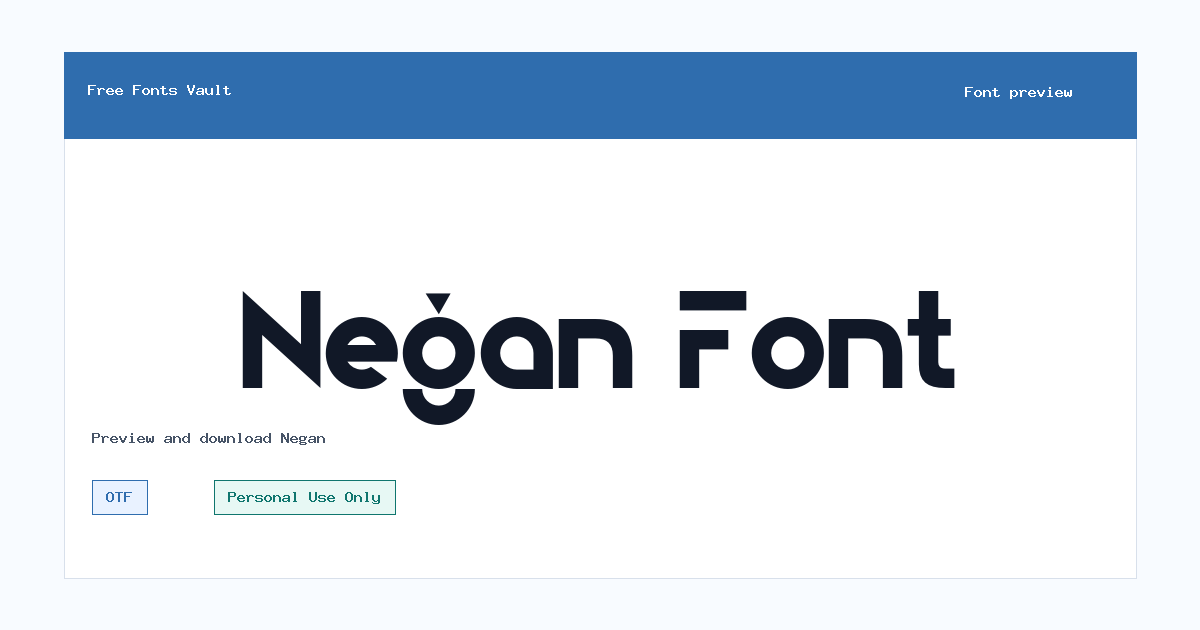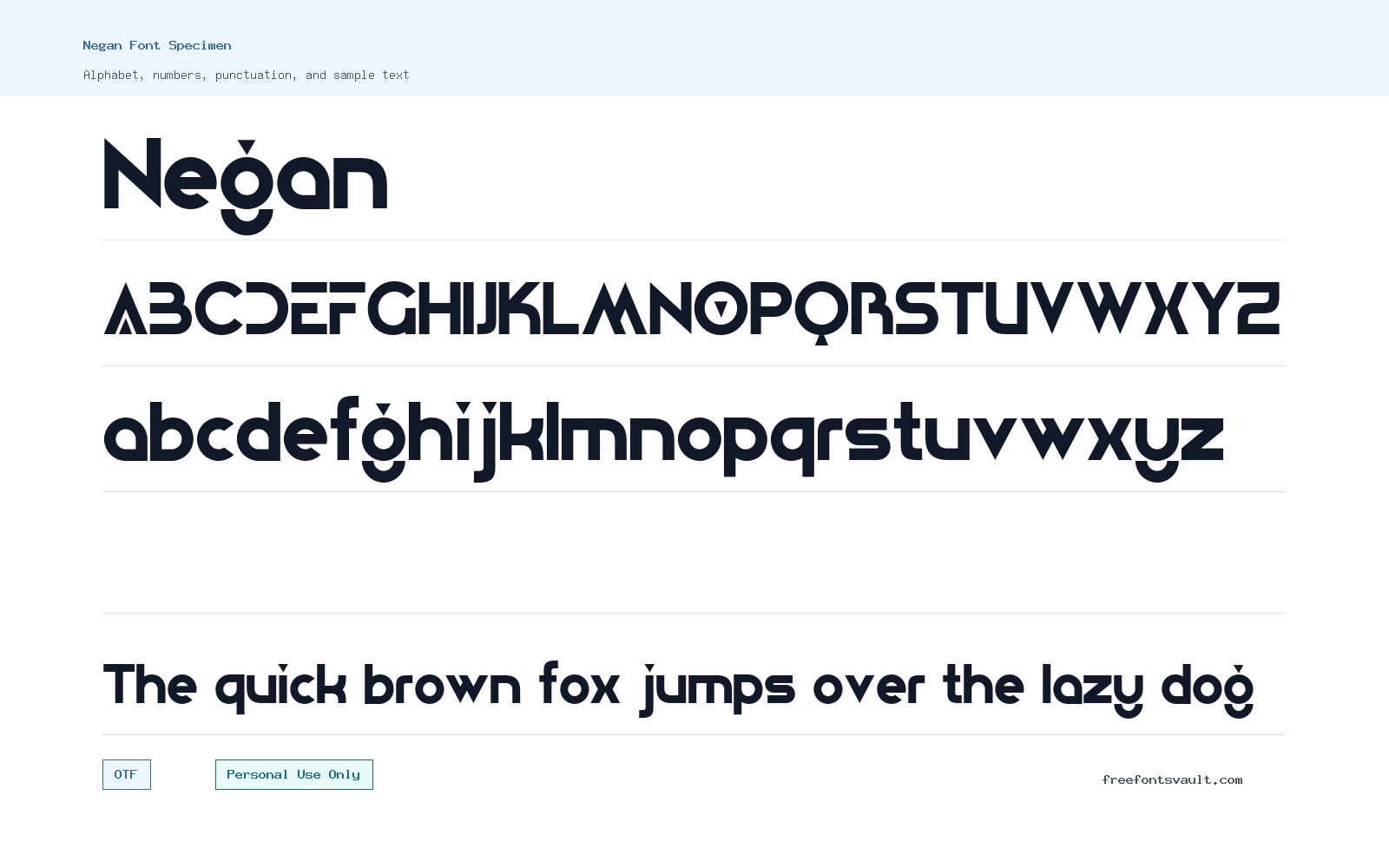
Negan
- Designer Jamaludin Ahmad Sahestya Dharma
- Foundry Pandeka Studio
Negan font.
Negan is a personal-use sans serif font with a clean regular style, offered as an OTF file for testing in previews, mockups, and non-commercial design drafts.
About Negan Font
Negan works best when you need a straightforward display of text without extra decorative detail. The regular style gives you a simple starting point for titles, short labels, social graphics, poster drafts, and other layouts where the font needs to be easy to test quickly. Because the available file is a demo OTF, it is a good choice for previewing the tone of the typeface before deciding whether it fits a larger project.
- Sans serif styling suited to short headings, simple titles, and clean layout drafts
- Personal poster concepts, social media drafts, and title previews
- Testing short words, names, labels, and headings before choosing a final typeface
Negan is credited to Jamaludin Ahmad Sahestya Dharma, with Pandeka Studio listed as the foundry.
Who designed Negan?
Negan is credited to Jamaludin Ahmad Sahestya Dharma, and Pandeka Studio is listed as the foundry.